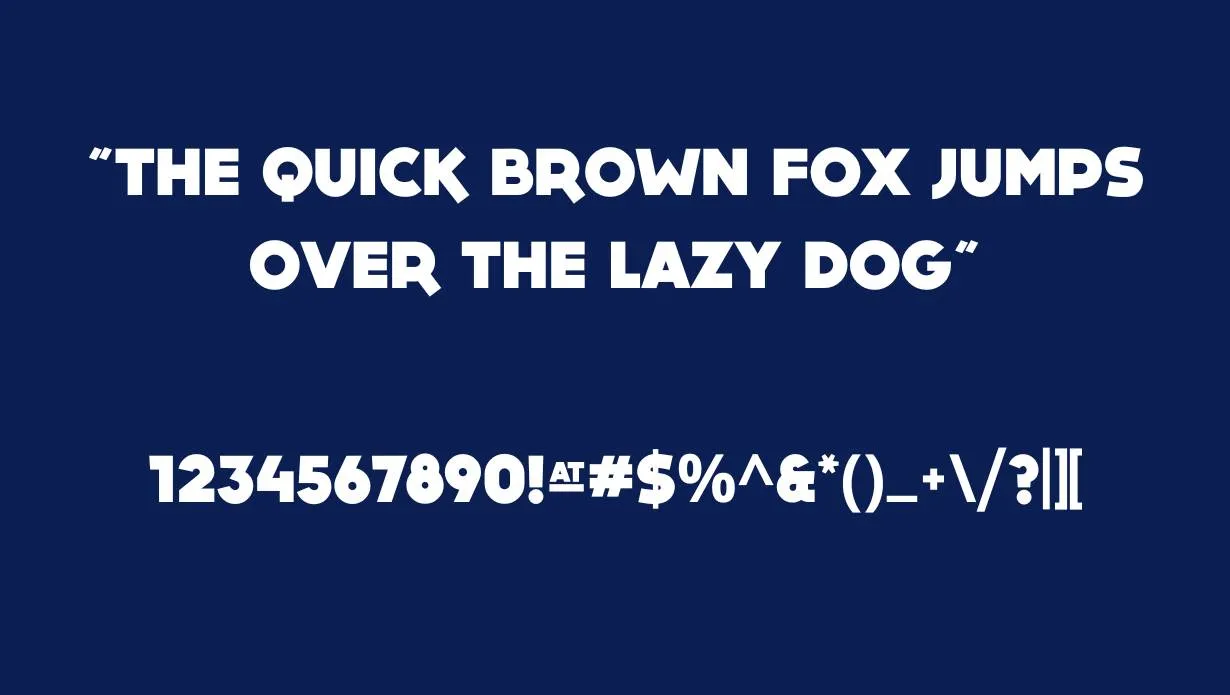
The Dock11 Font exhibits a sleek and modern appearance, offering a clean and straightforward design vibe. In Adobe Photoshop, crafts minimalistic and sleek designs that embody a contemporary aesthetic.
| Name | Dock11 Font |
| Designer | Lukas Bischoff |